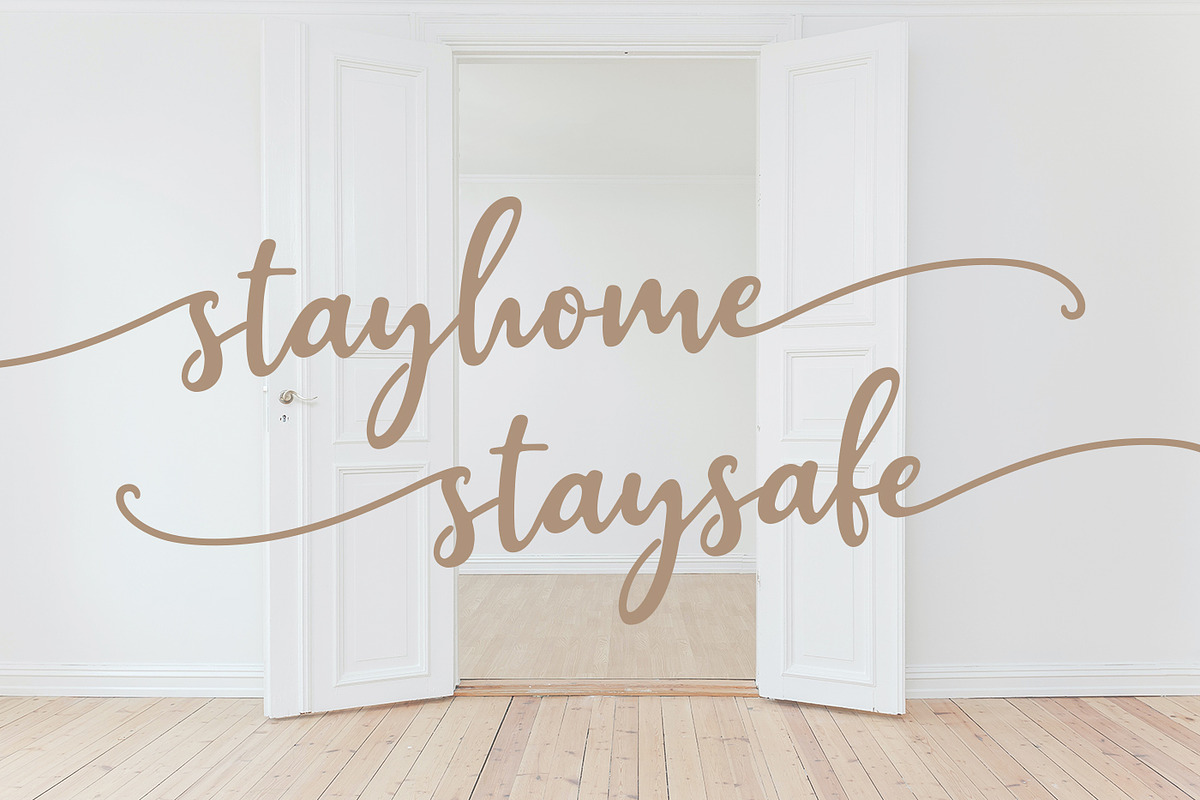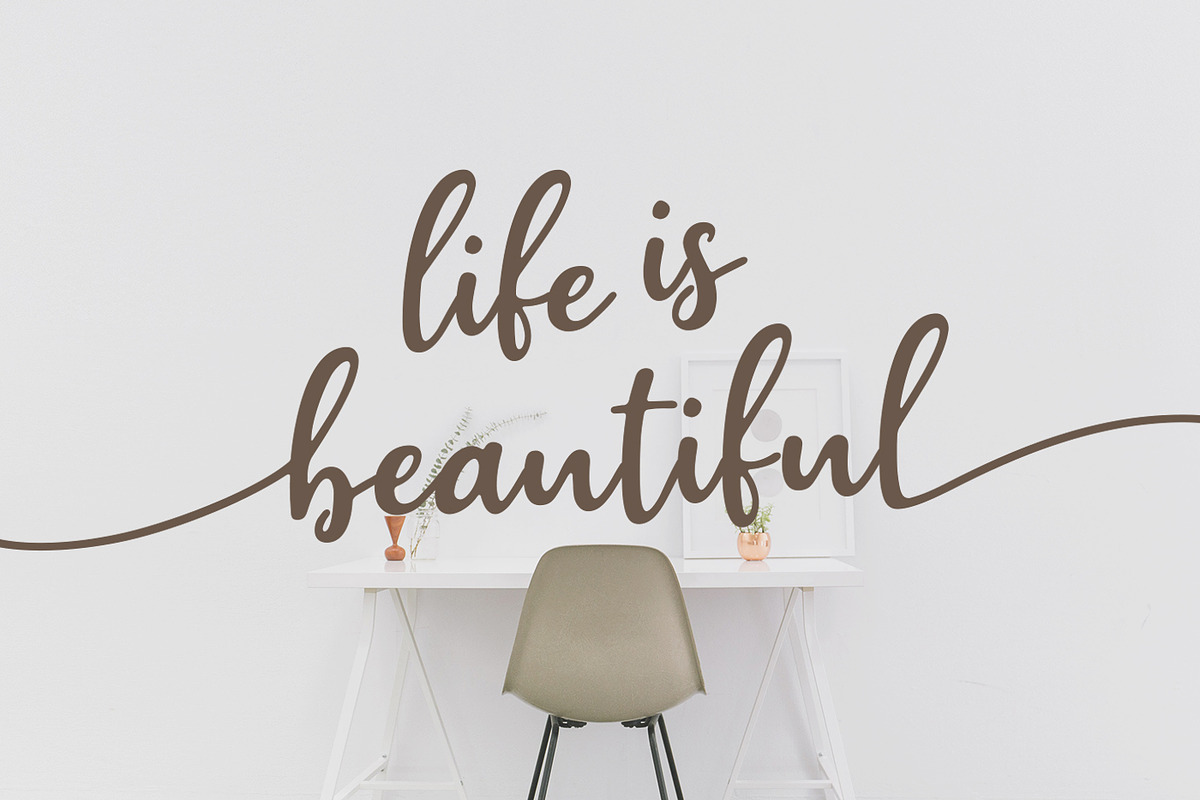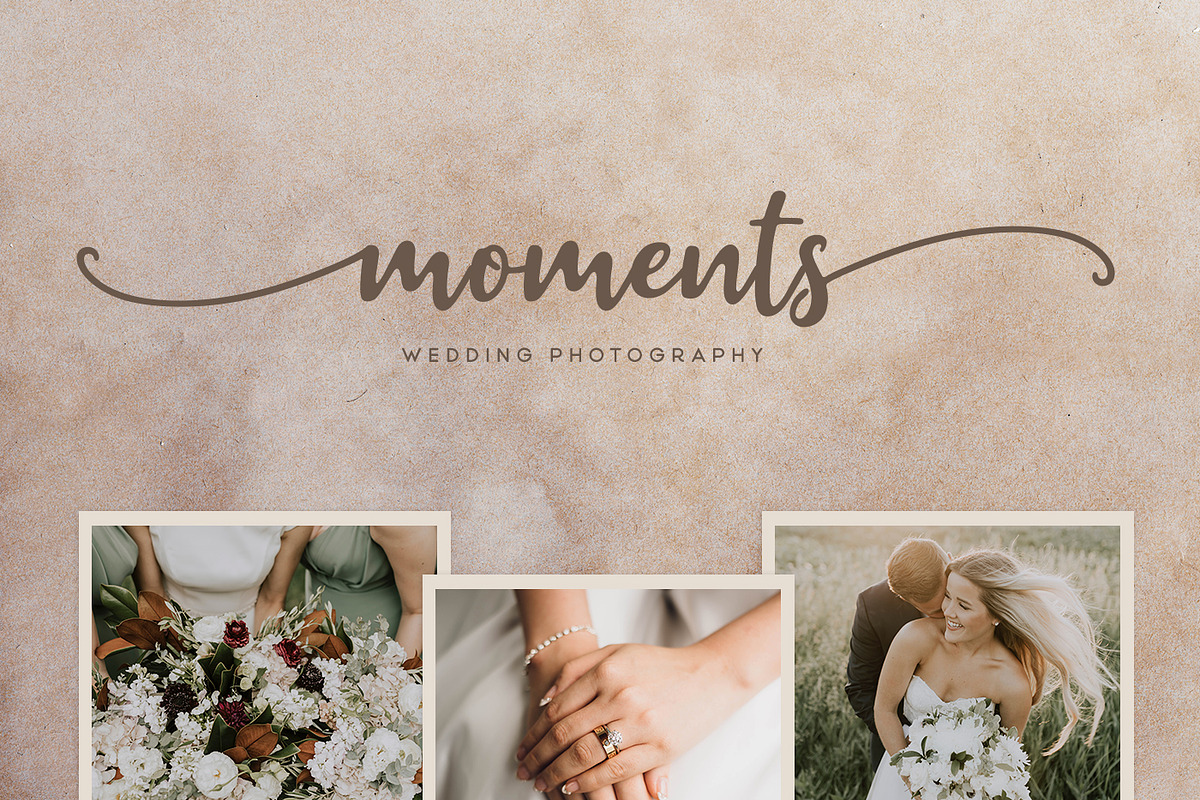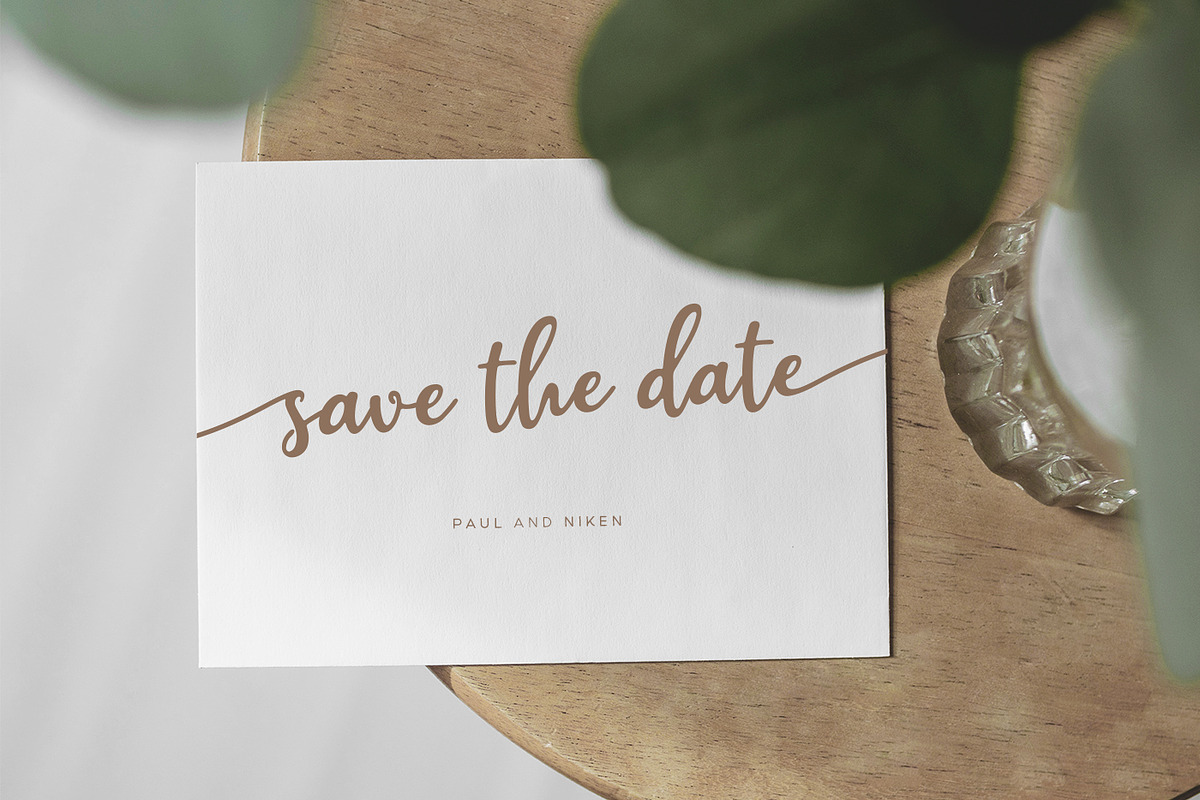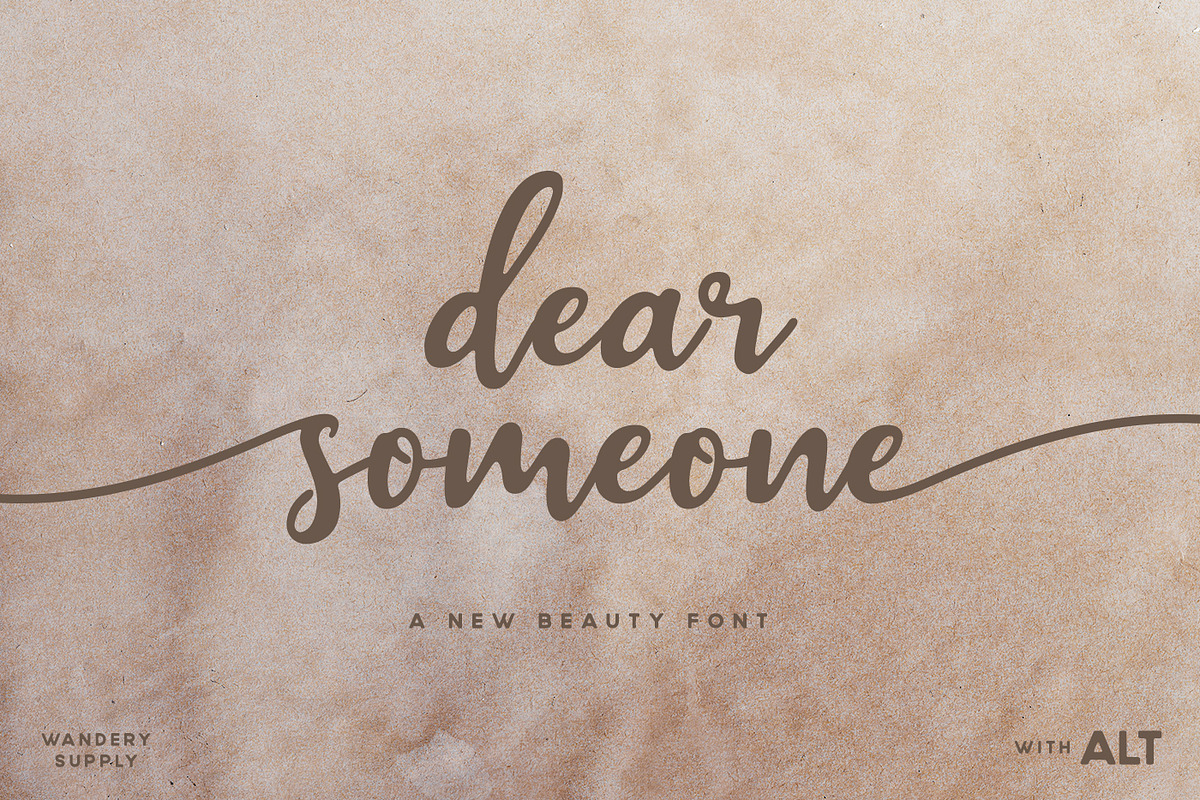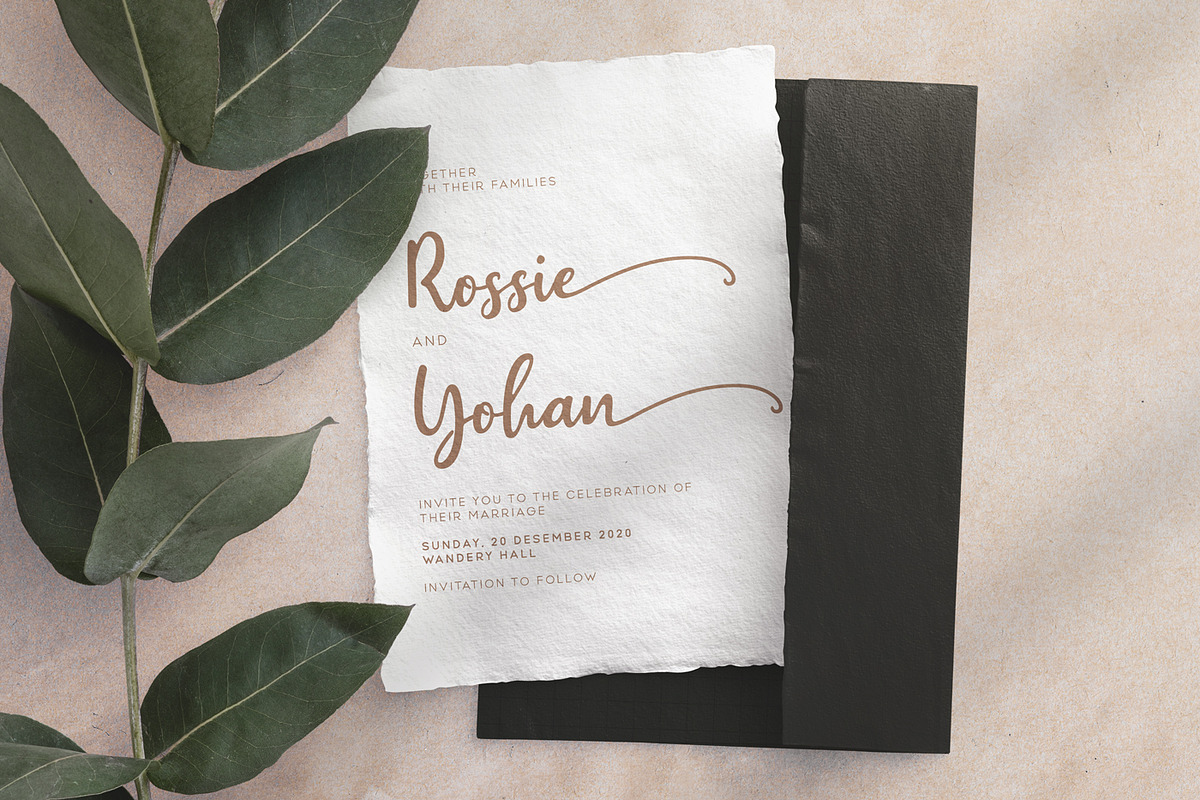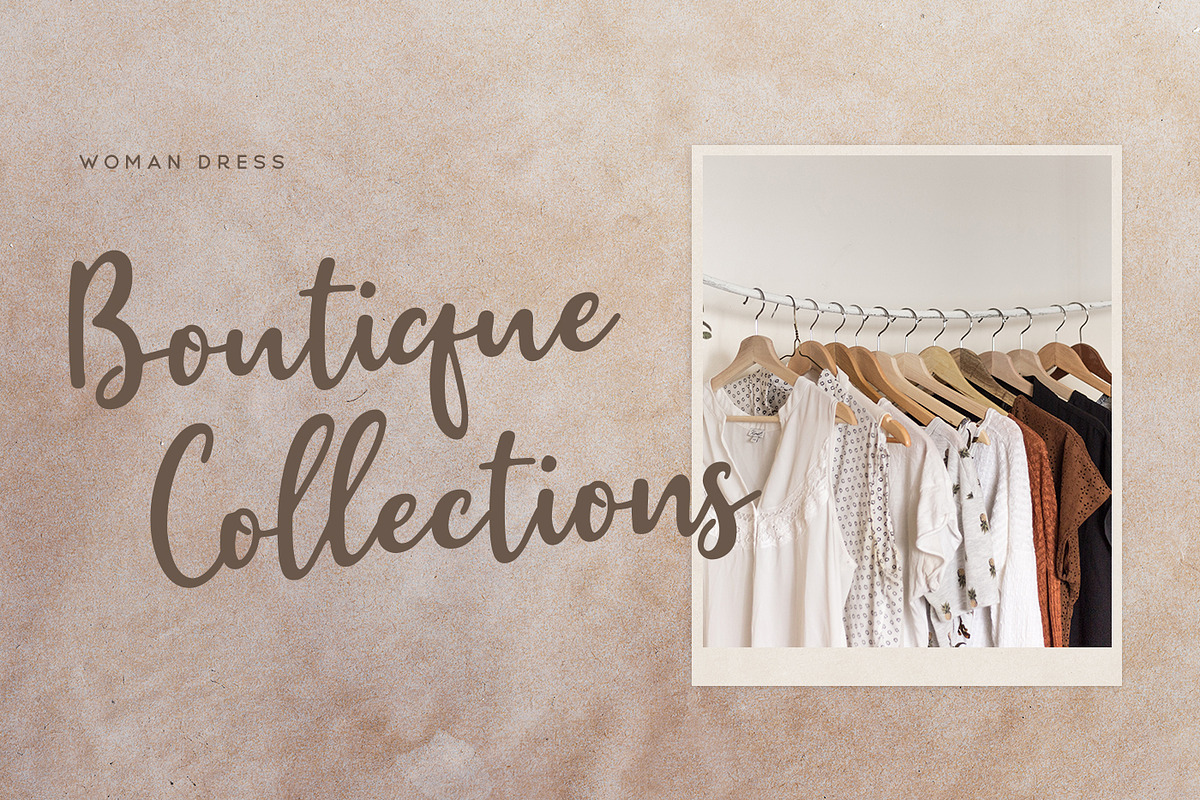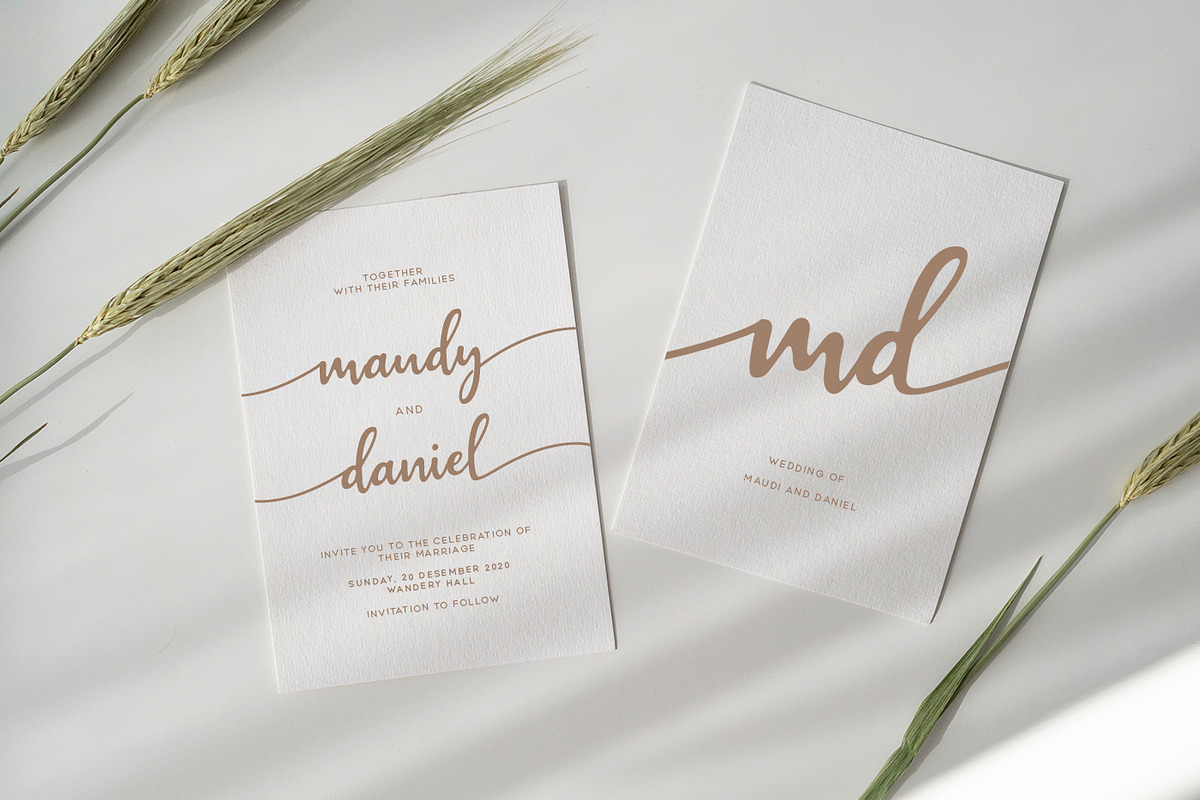
Dear Someone Script Font
Dear Someone with Titlings and Finalize Characters
Dear Someone is a modern and beauty script typeface. Come with plenty of Alternates Characters like Tiltlings Characters and Finalize Characters.
Dear Someone is perfect choices for people looking for clean, elegant, beauty styles.
Suitable for any graphic designs such as branding materials, wedding, t-shirt, cover, thumbnail, print, business cards, logo, poster, t-shirt, photography, quotes .etc